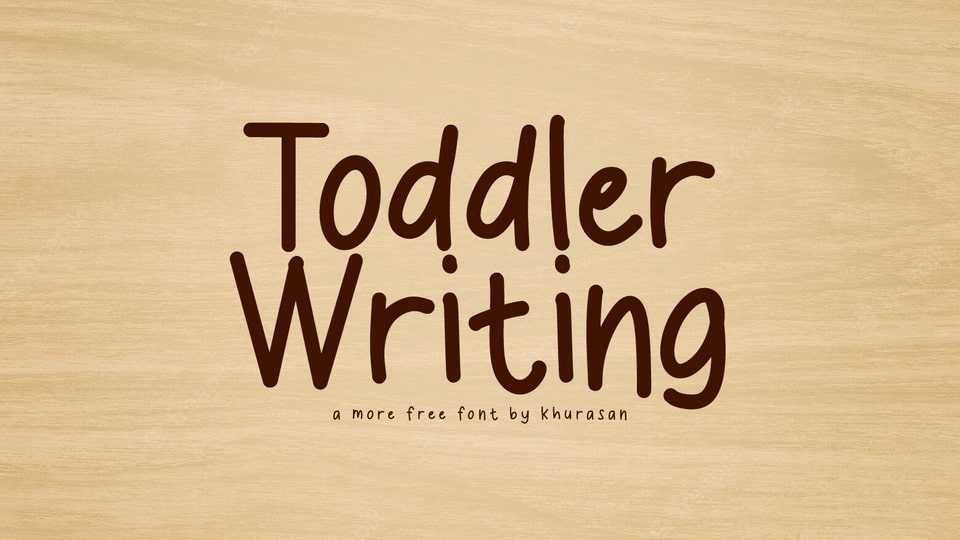
Download Toddler Writing font, a playful handwritten typeface that’s bursting with fun and character. It features a lively and expressive design, with each letter exuding a sense of spontaneity and joyful creativity.